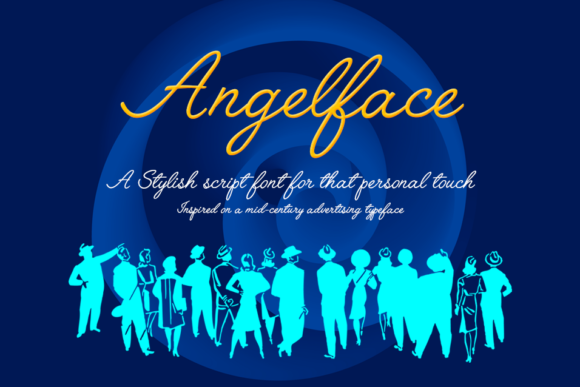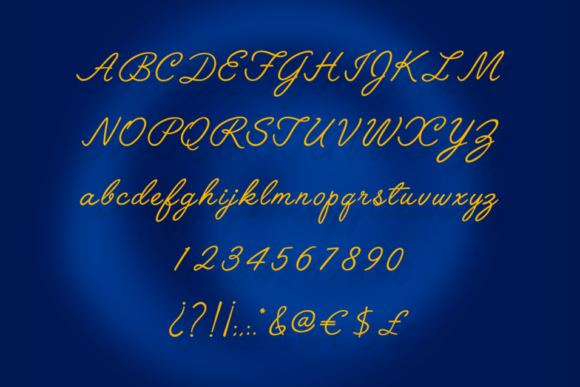
Angelface Font
About Angelface Font
Angelface embodies fun, quirkiness and authenticity. This enchanting handwritten font will turn any creative idea into a true standout.